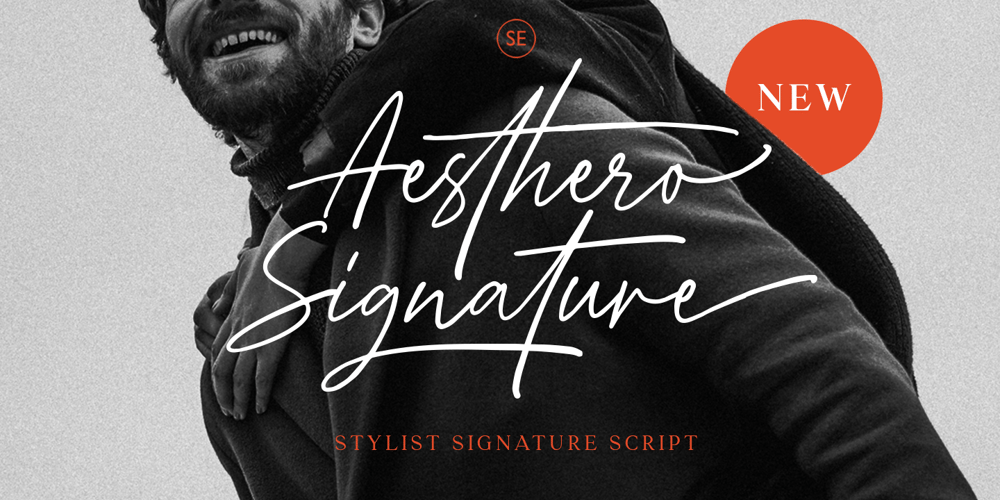
Aesthero Font Family was designed by Sarid Ezra and published by Sarid Ezra. Aesthero contains 1 styles and family package options. Aesthero Signature is a genuine signature typeface featuring lowercase and uppercase characters, symbols, and with multilingual support. It includes ligatures, contextual alternates, stylistic alternates, as well as swashes. Aesthero Signature is perfectly suited for logo branding, exquisite fashion designs, ideal for wedding invitations, and crafting handwritten quotes.